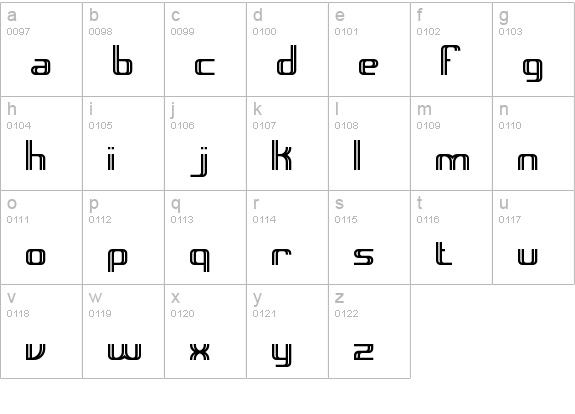
Intersect BRK is a visually striking font that seamlessly blends modern and geometric elements. With its bold and angular letterforms, this typeface exudes a sense of strength and dynamism. Each character is meticulously crafted, creating a unique and captivating design. What makes Intersect BRK even more enticing is that it is available for free download at FontsMarket.com. This means that designers, creatives, and typography enthusiasts can easily access this exceptional font without any cost. Whether you are working on a personal project or a professional endeavor, Intersect BRK provides a versatile and eye-catching option to elevate your designs. The clean lines and sharp corners of Intersect BRK make it ideal for a wide range of applications. From logo designs and branding projects to headlines and display text, this font grabs attention and captivates the viewer. Its bold presence and contemporary aesthetic make it a perfect choice for modern and futuristic designs. The versatility of Intersect BRK extends beyond its visual appeal. This font is highly legible, ensuring that your message is effectively communicated. Its well-balanced proportions and carefully crafted spaces between characters contribute to an exceptional reading experience. Whether you are a graphic designer, web developer, or simply a font enthusiast, Intersect BRK is an incredible addition to your font library. Its free availability at FontsMarket.com allows you to easily incorporate this font into your projects, without any financial constraints. So why wait? Download Intersect BRK today and unlock the potential to create stunning and impactful designs.